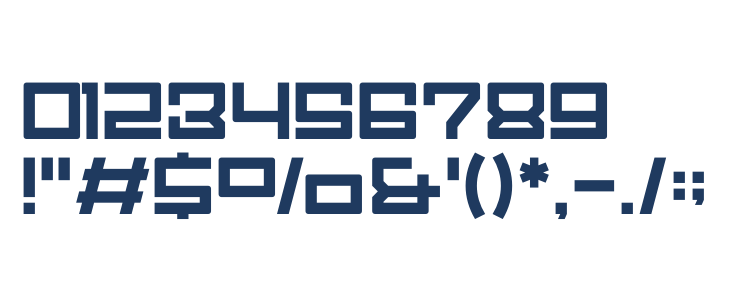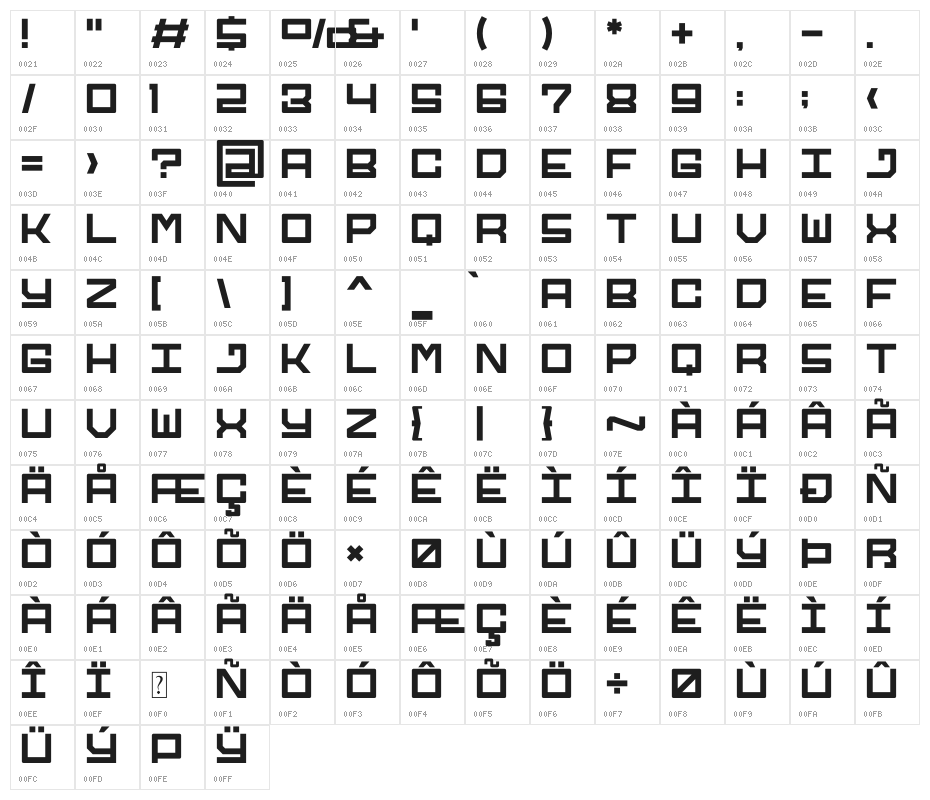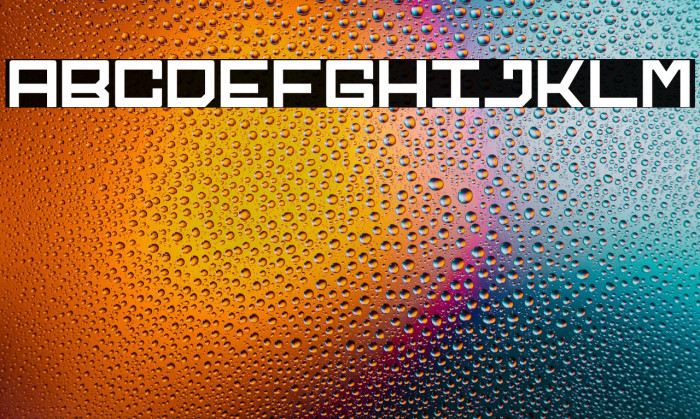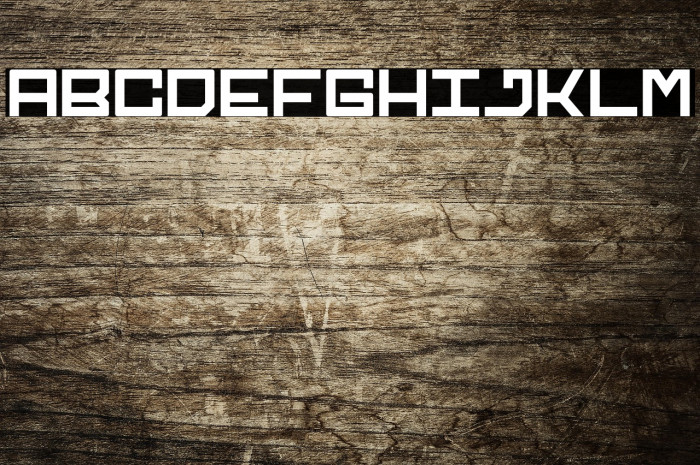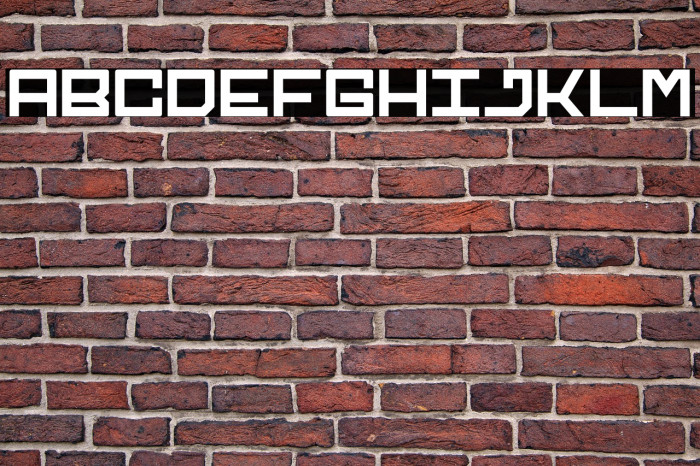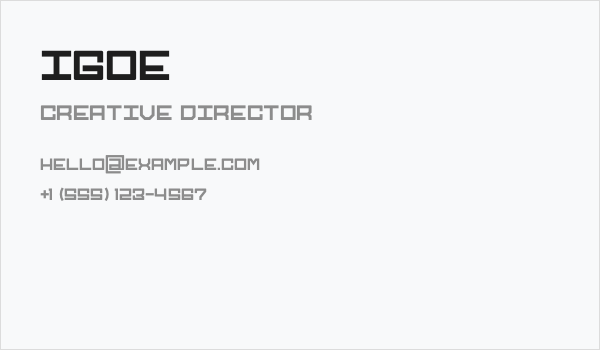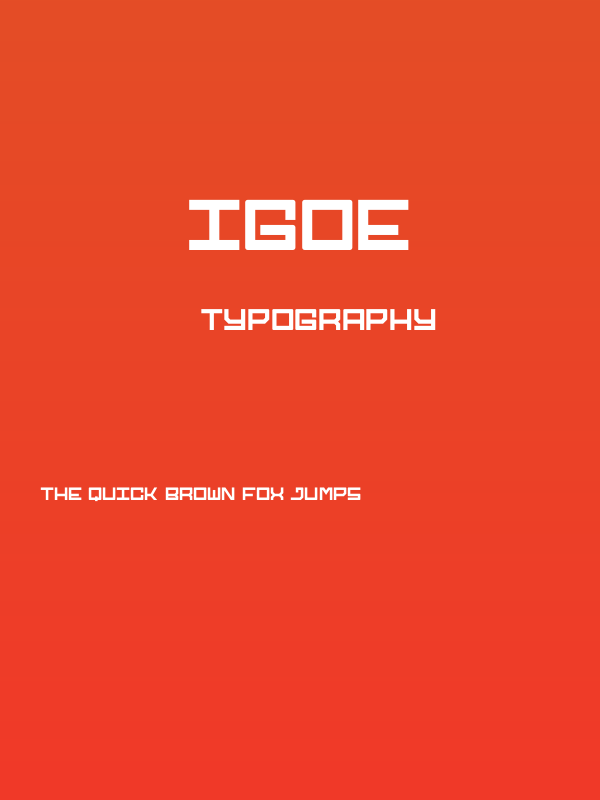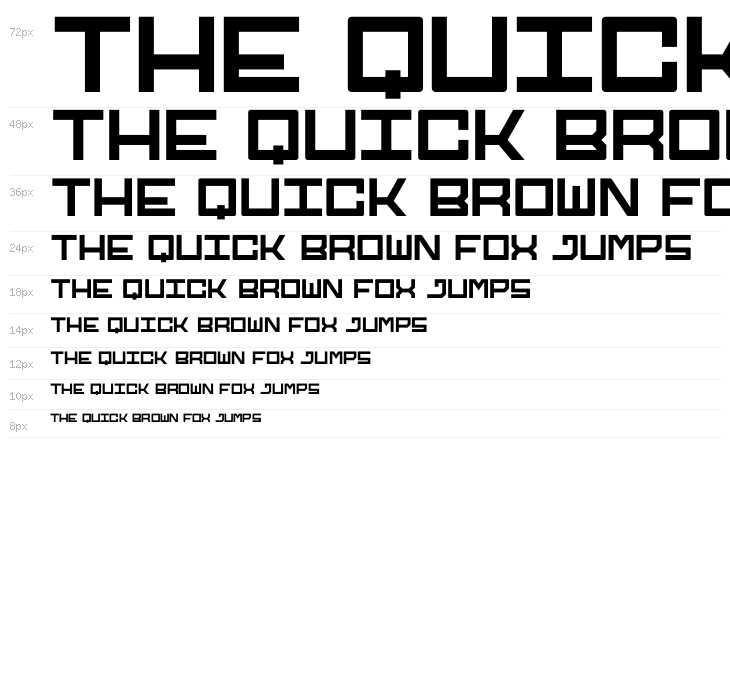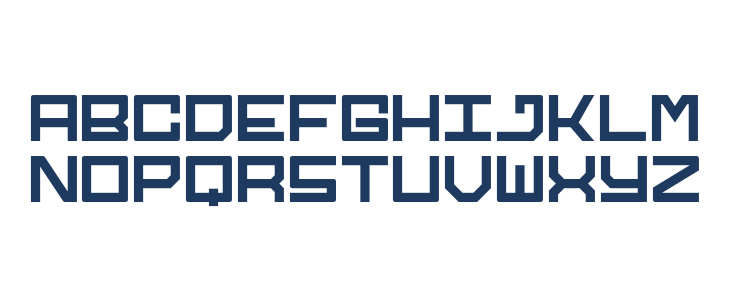
Igoe Font
Igoe Description
This font features a bold, geometric design with a futuristic and industrial feel. The characters are constructed with straight lines and sharp angles, giving it a mechanical and modern appearance. The uppercase letters are uniform in height, while the lowercase letters maintain a consistent style, enhancing readability. The numerals are distinct and align well with the overall design, making them suitable for digital displays or technical documents. Special characters are crafted to match the font's angular aesthetic, ensuring a cohesive look across all text elements.
| Use Case | Headlines, Logos, Digital displays |
| Proposed Projects | Ideal for technology branding, video game interfaces, sci-fi movie posters, and digital displays. |